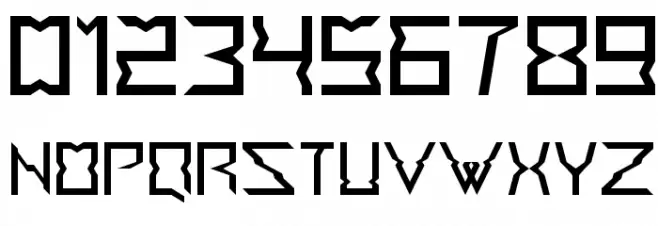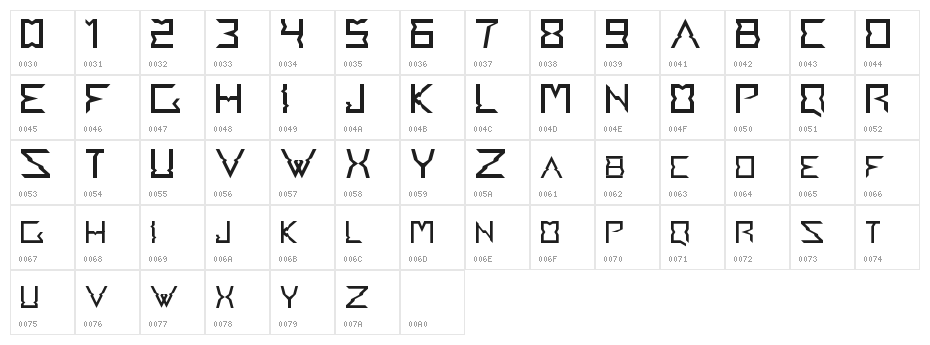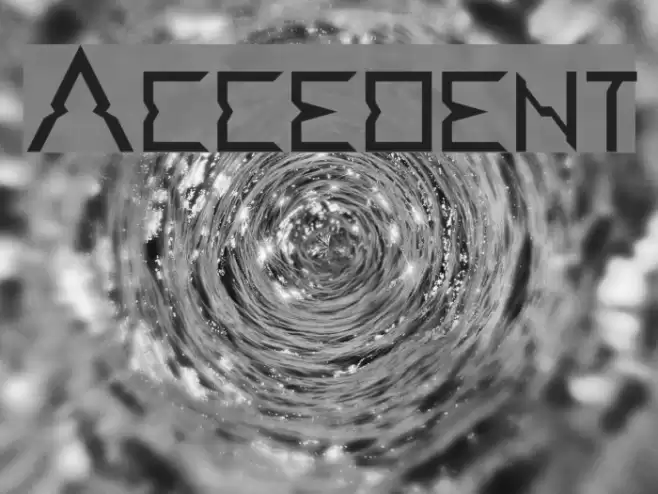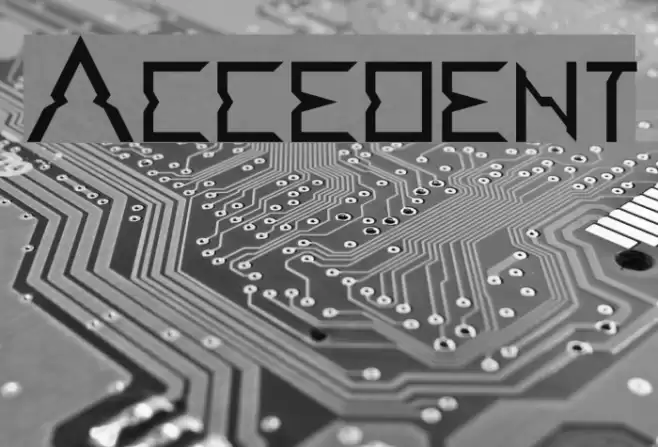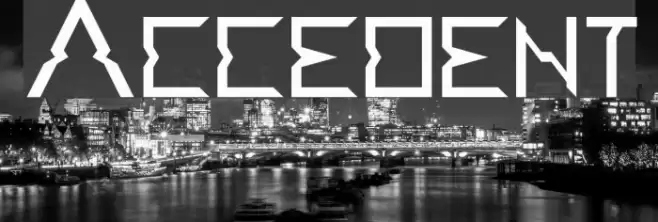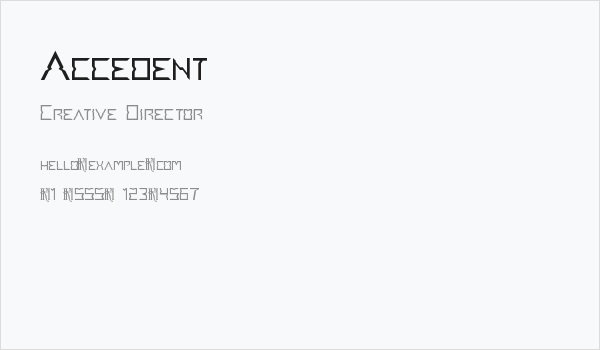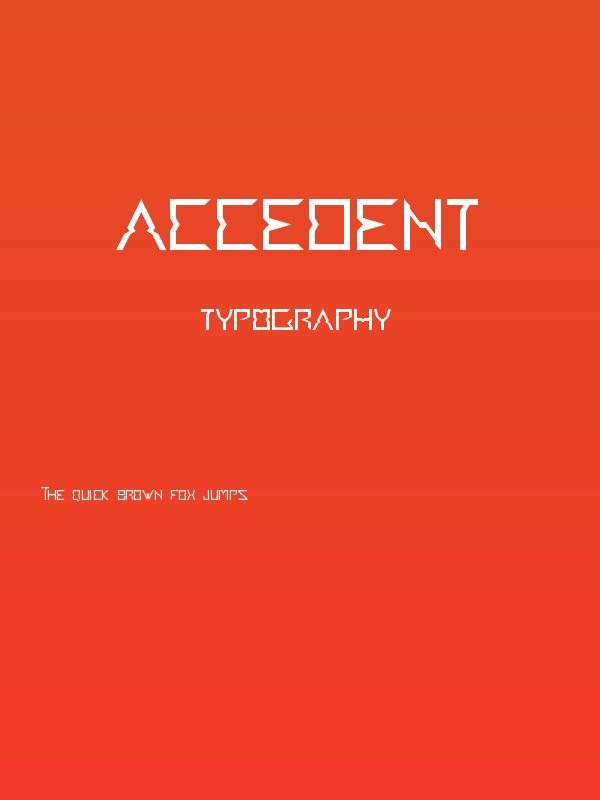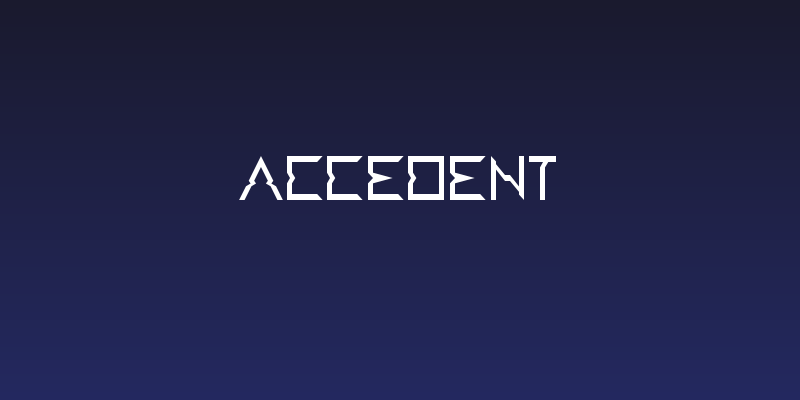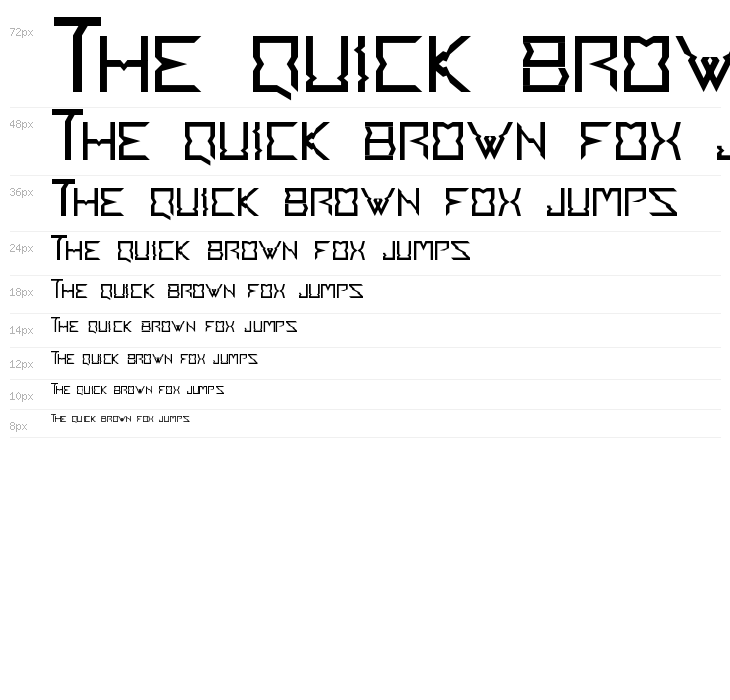
Accedent Font
Accedent Description
This font features a bold, angular design with sharp, geometric edges that create a futuristic and edgy appearance. The characters are constructed with a series of straight lines and sharp angles, giving them a mechanical and industrial feel. The uppercase and lowercase letters maintain a consistent style, with the numbers and special characters following the same design principles. The overall look is striking and modern, making it suitable for projects that require a strong visual impact.
| Overall Style | Futuristic, Edgy |
| Proposed Projects | Ideal for sci-fi themed posters, video game titles, technology branding, and edgy graphic design projects. |